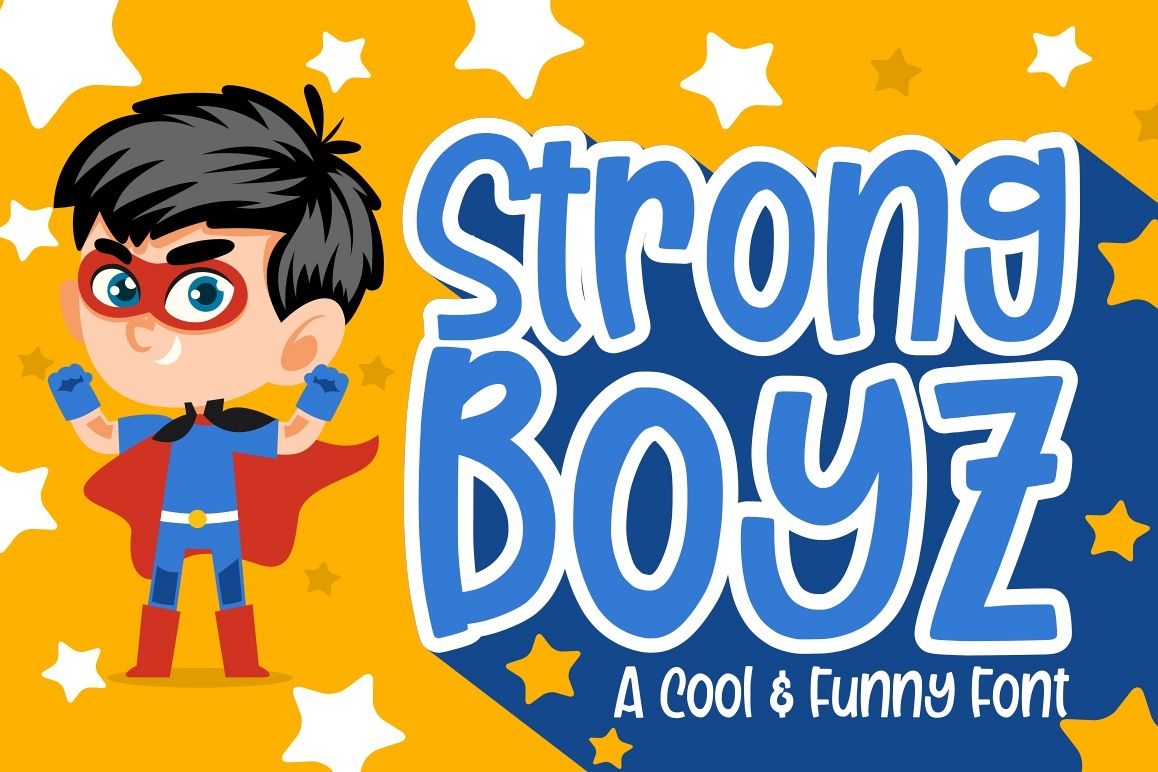
Strong Boyz
Introducing Strong Boyz
Strong Boyz Font is a bold and fun display font. It brings joy and happiness to all of us. Inspired by a bold and fun marker with bold and strong style. This font is ideal for display, text, print, branding, signage, with a set of optimal characters for your design in any layout